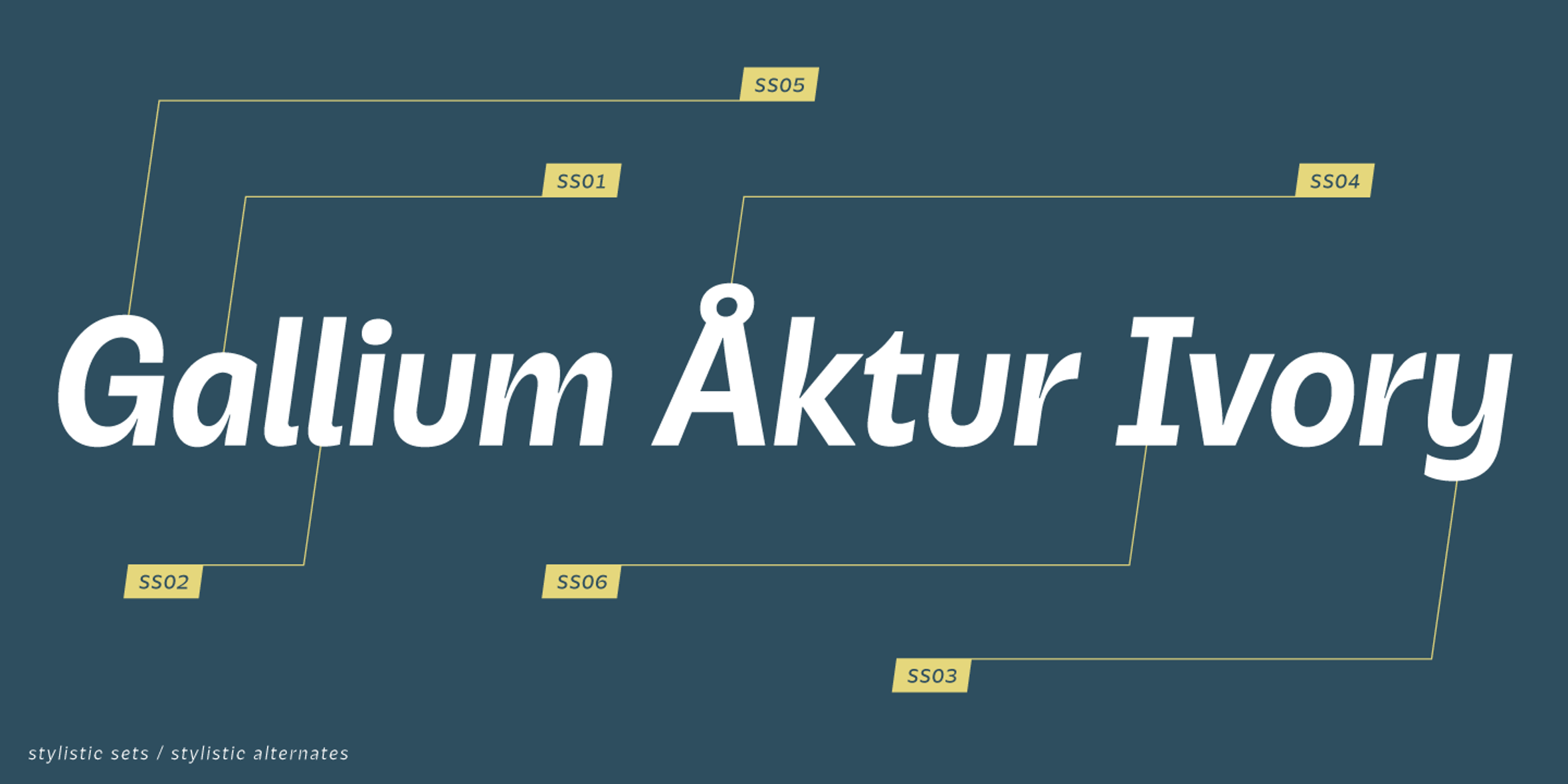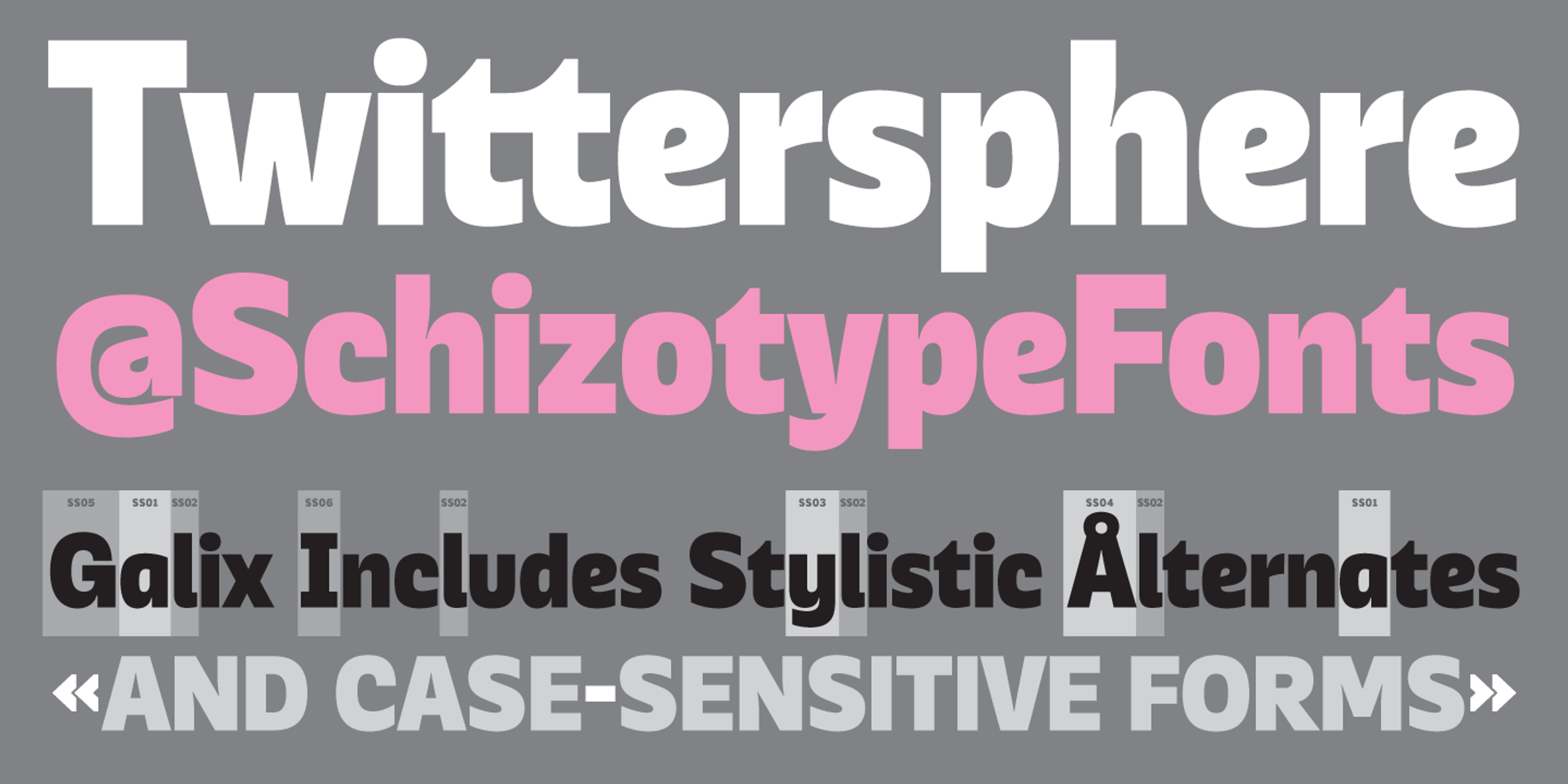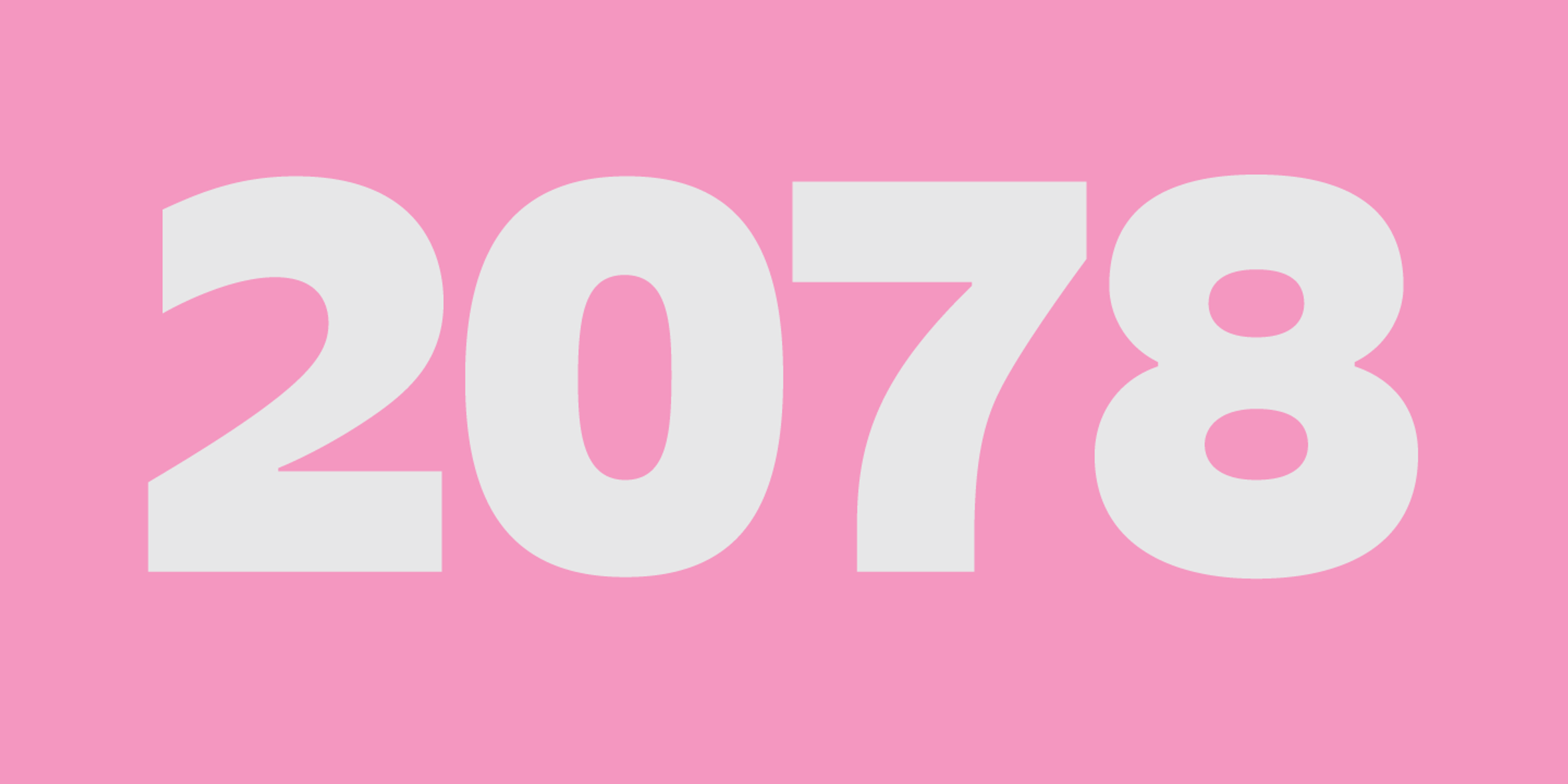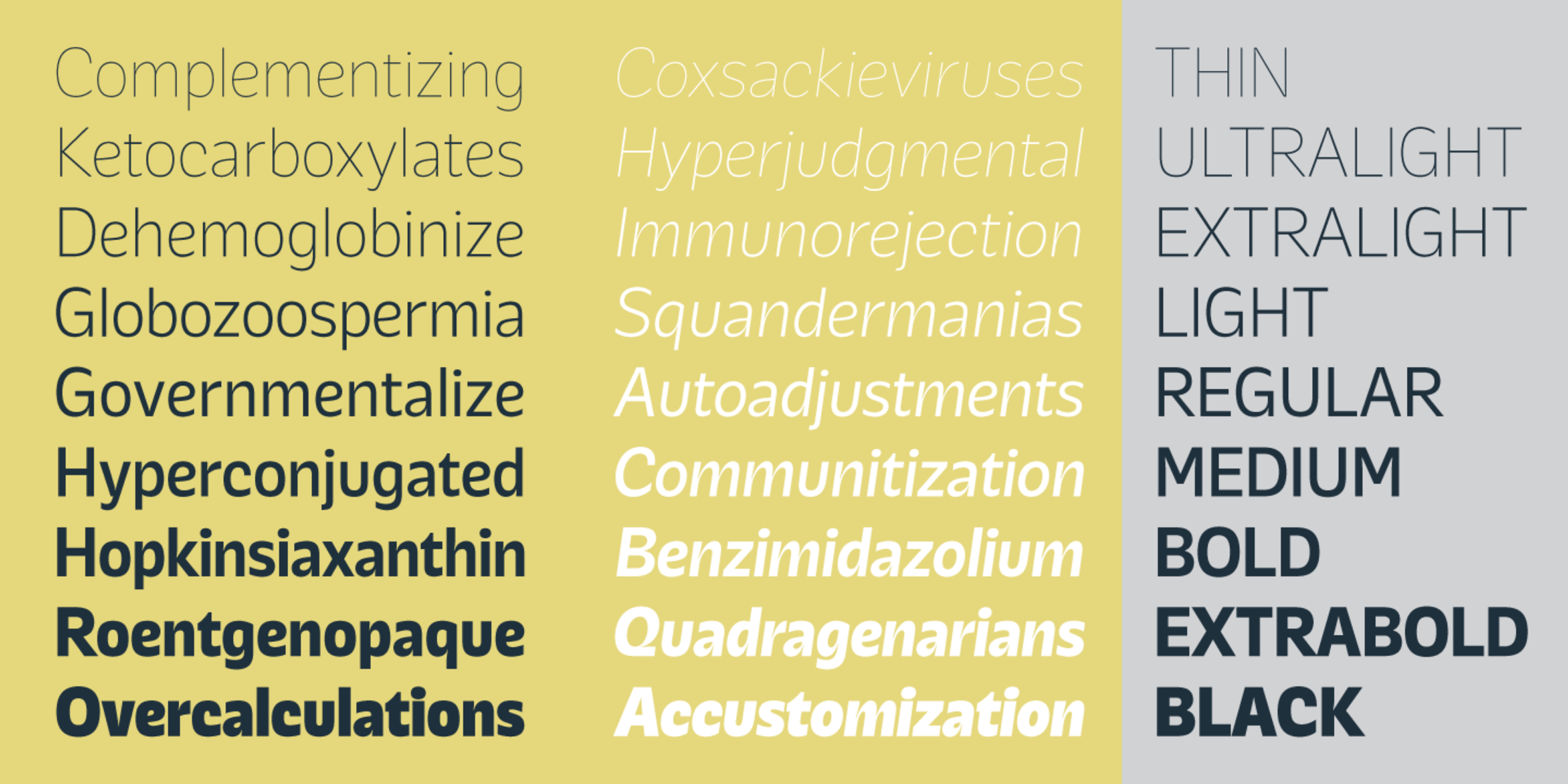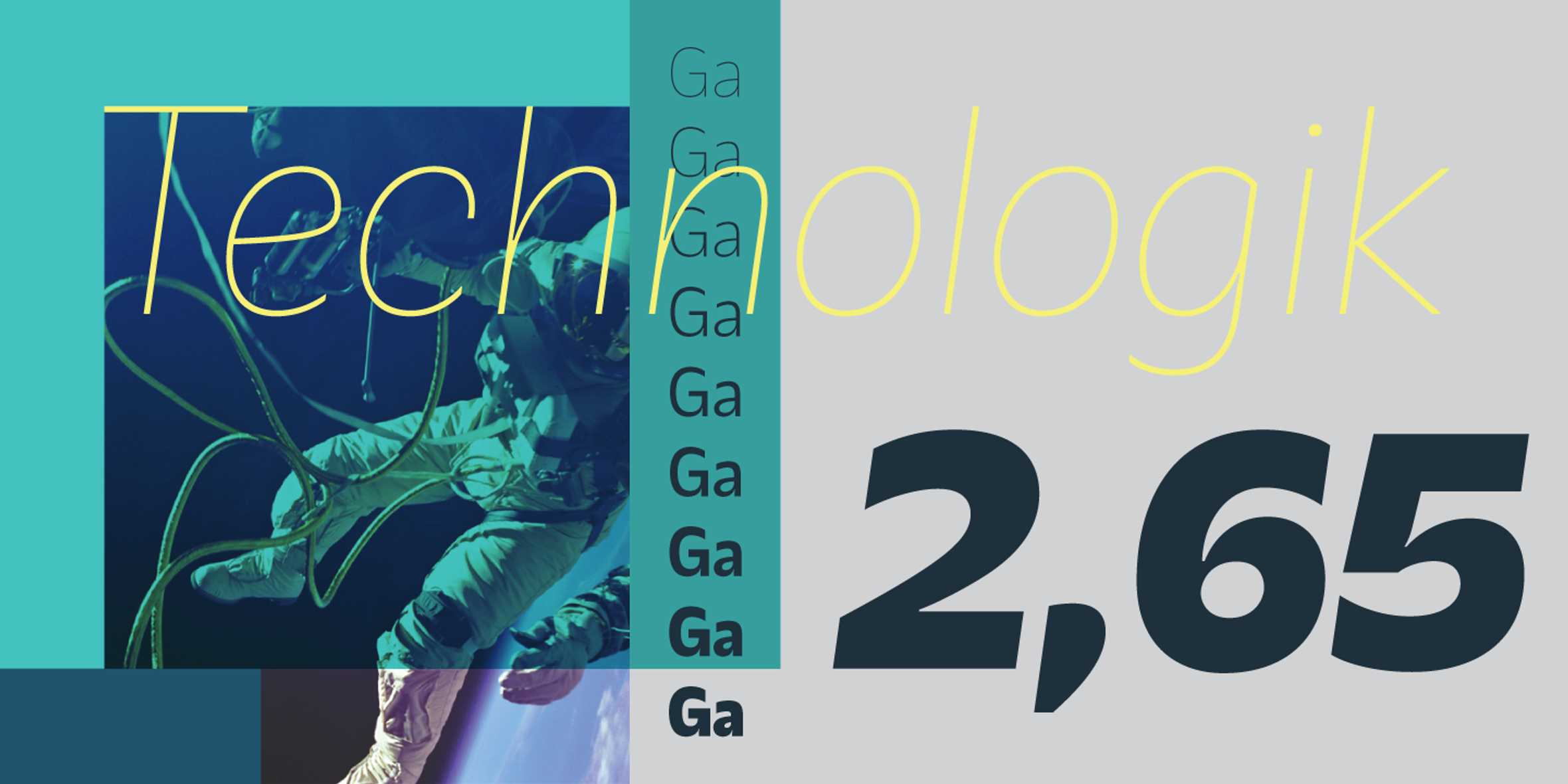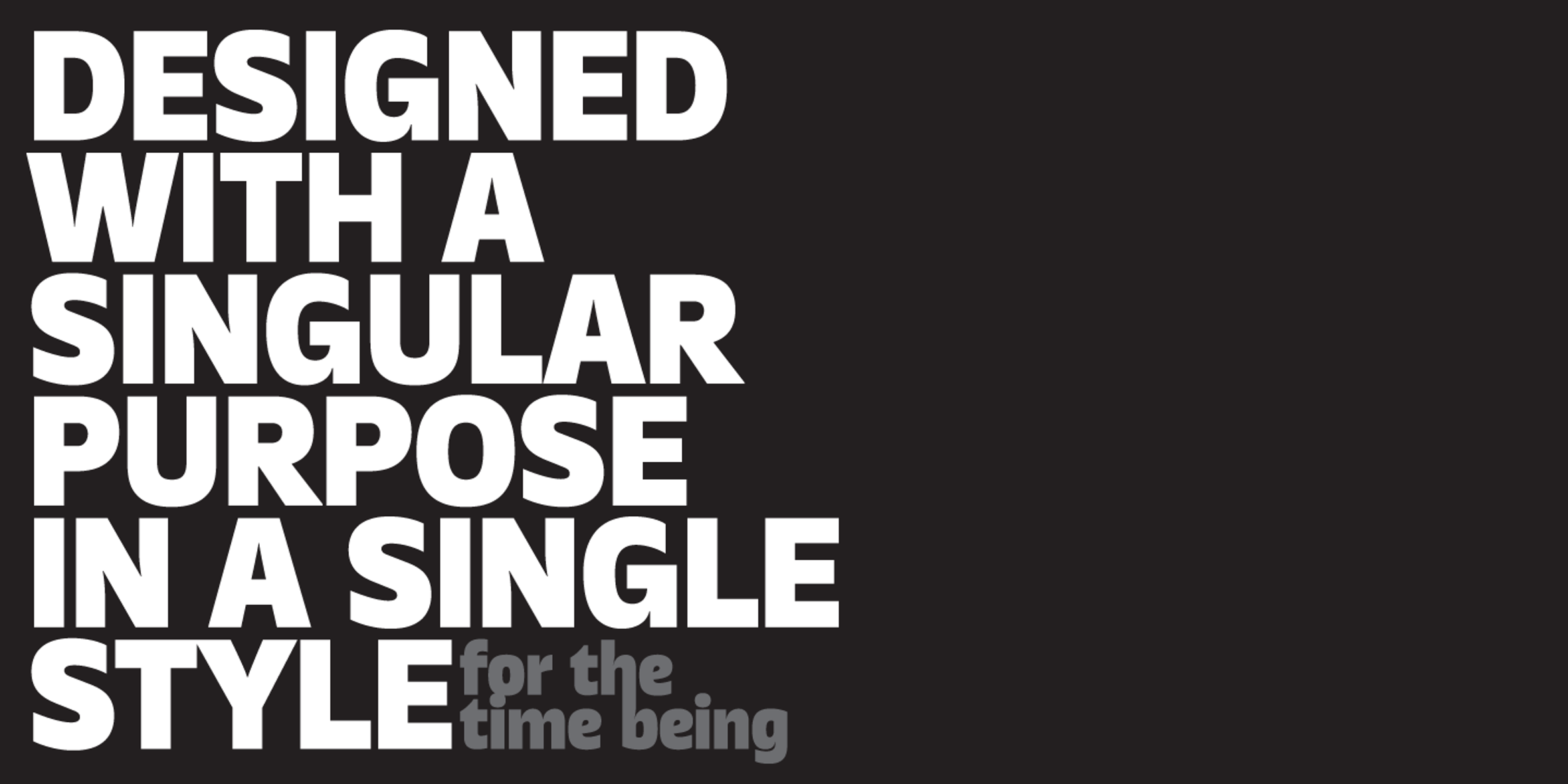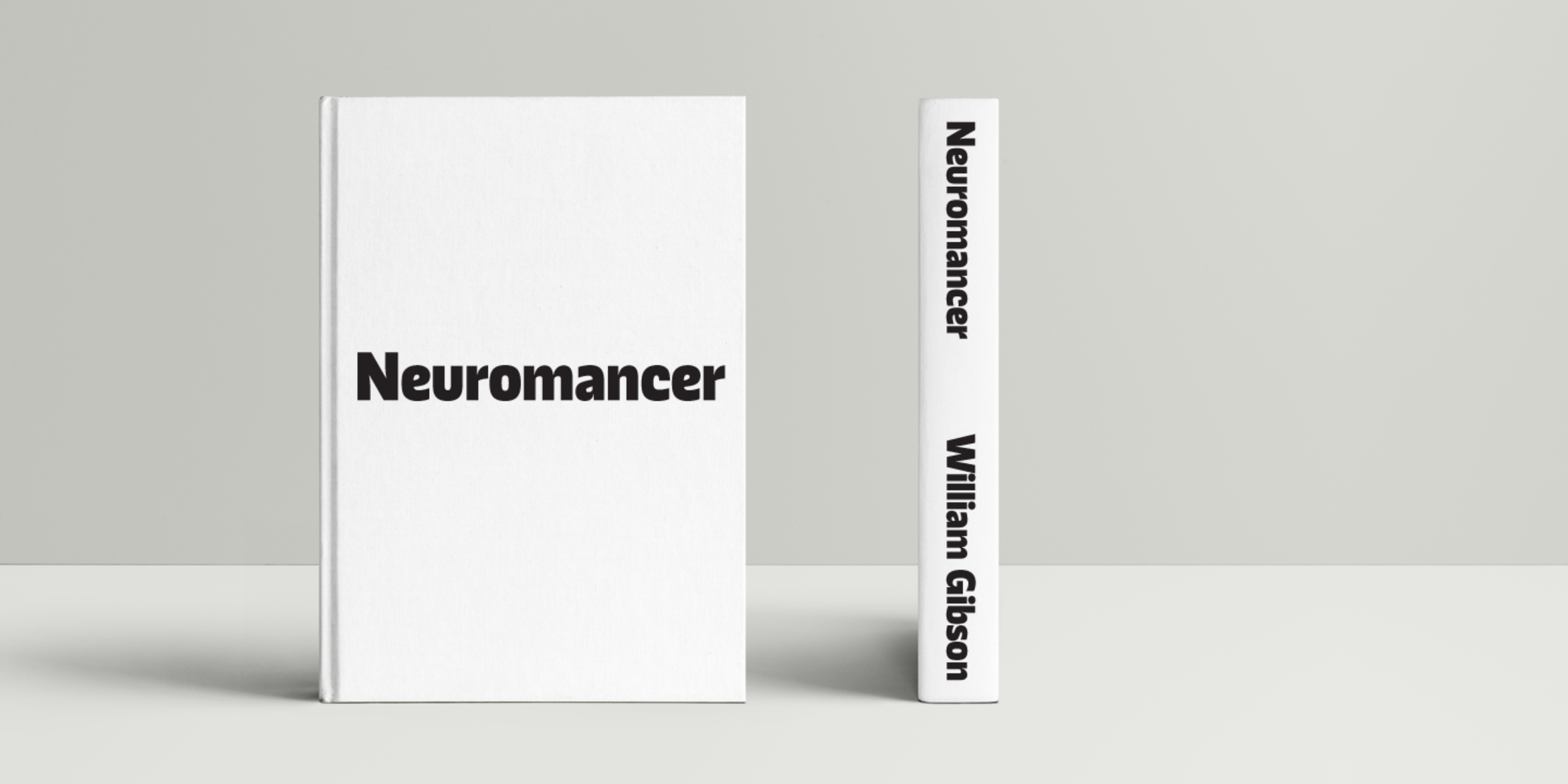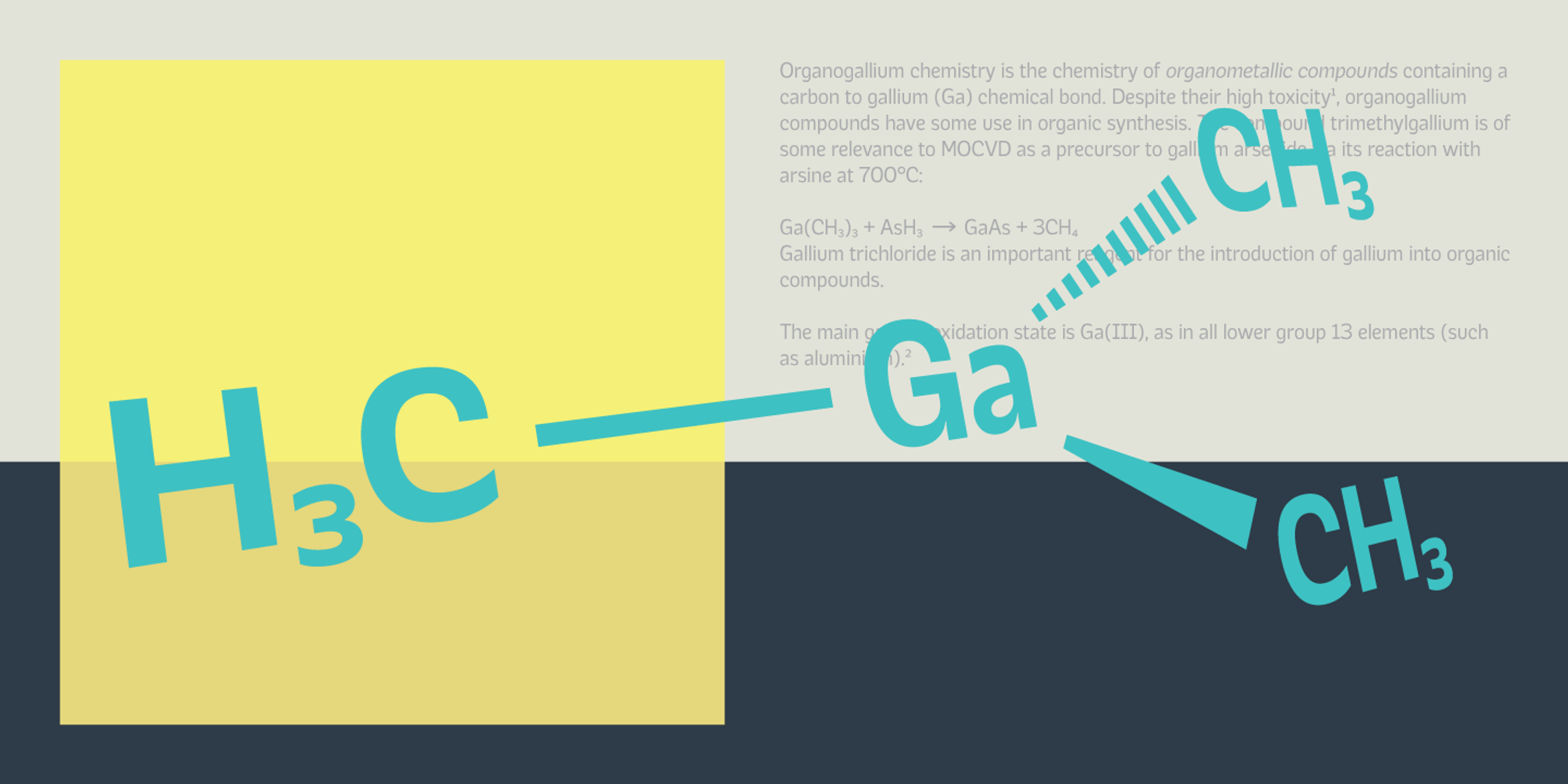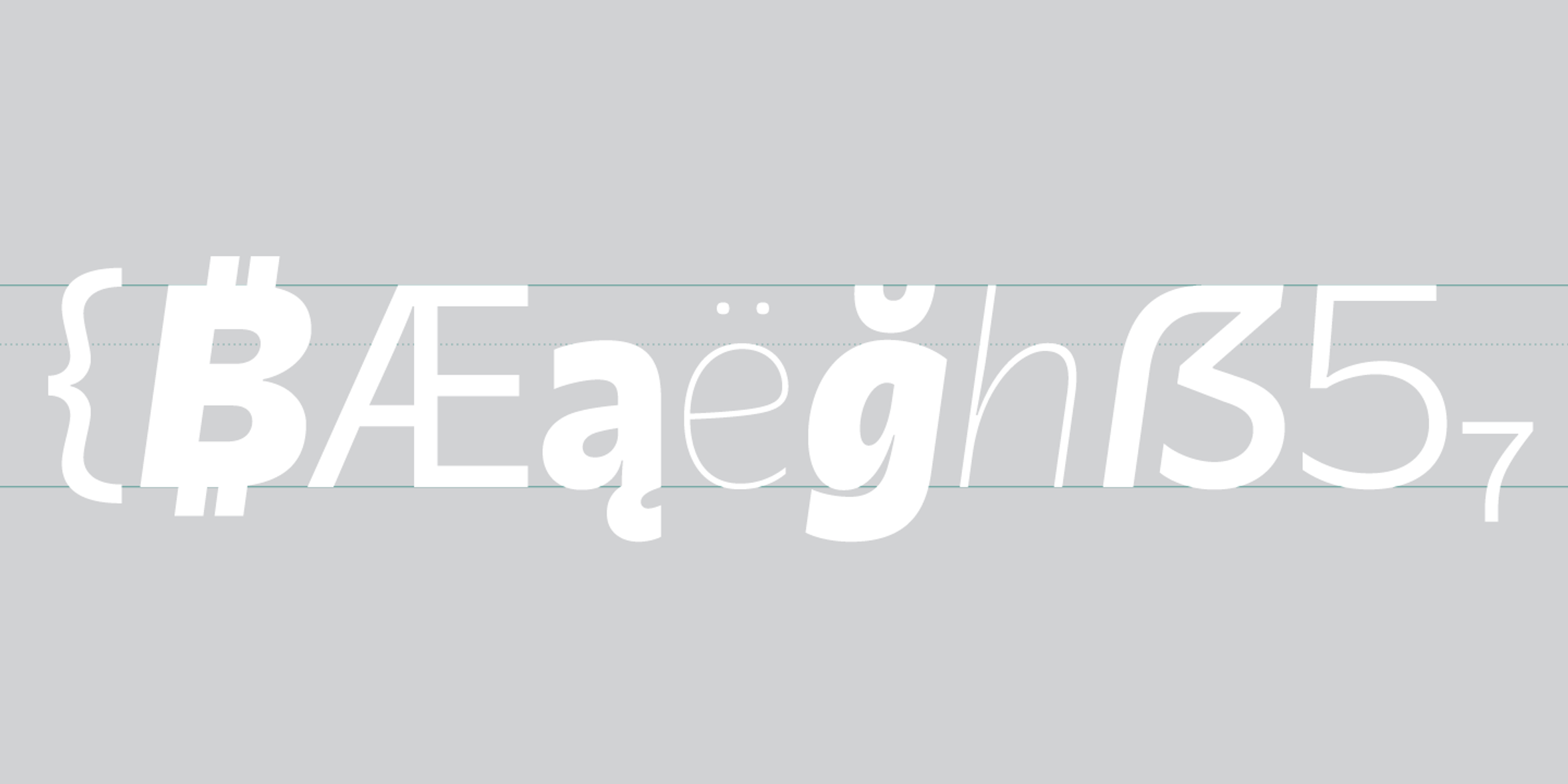
Galix
Galix is a technical sans serif designed to look futuristic without any retro appearance. It has a squarish, slightly condensed anatomy characterized by thin joints and deep ink traps, adding sparkle to the otherwise monoline typeface. In the italics, these cuts are accentuated even more, which creates a sense of speed in the letterforms. Perfect for websites, apps, infographics, and magazines, Galix is technical but has a warmth and personality often missing from this genre.
- Common Ligatures
- Fractions
- Ordinal Numerals
- Stylistic Alternates
- Subscript
- Superscript
- Tabular Numerals